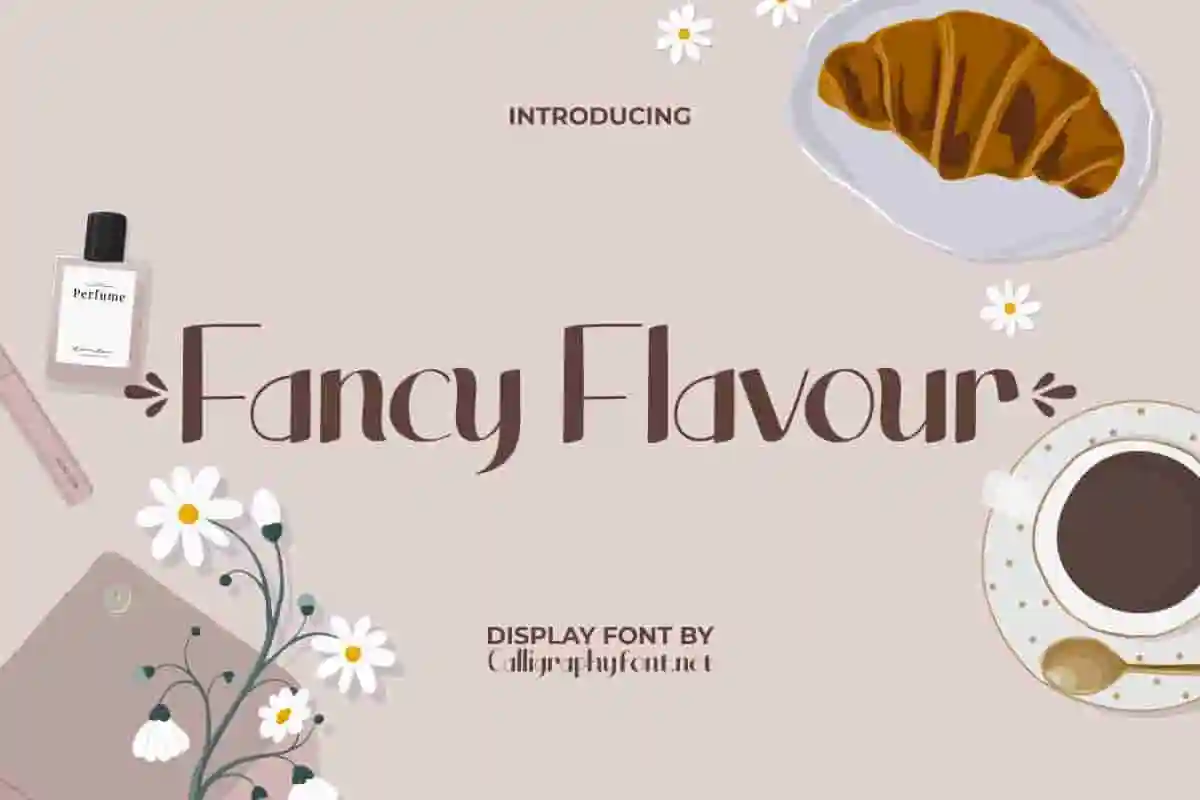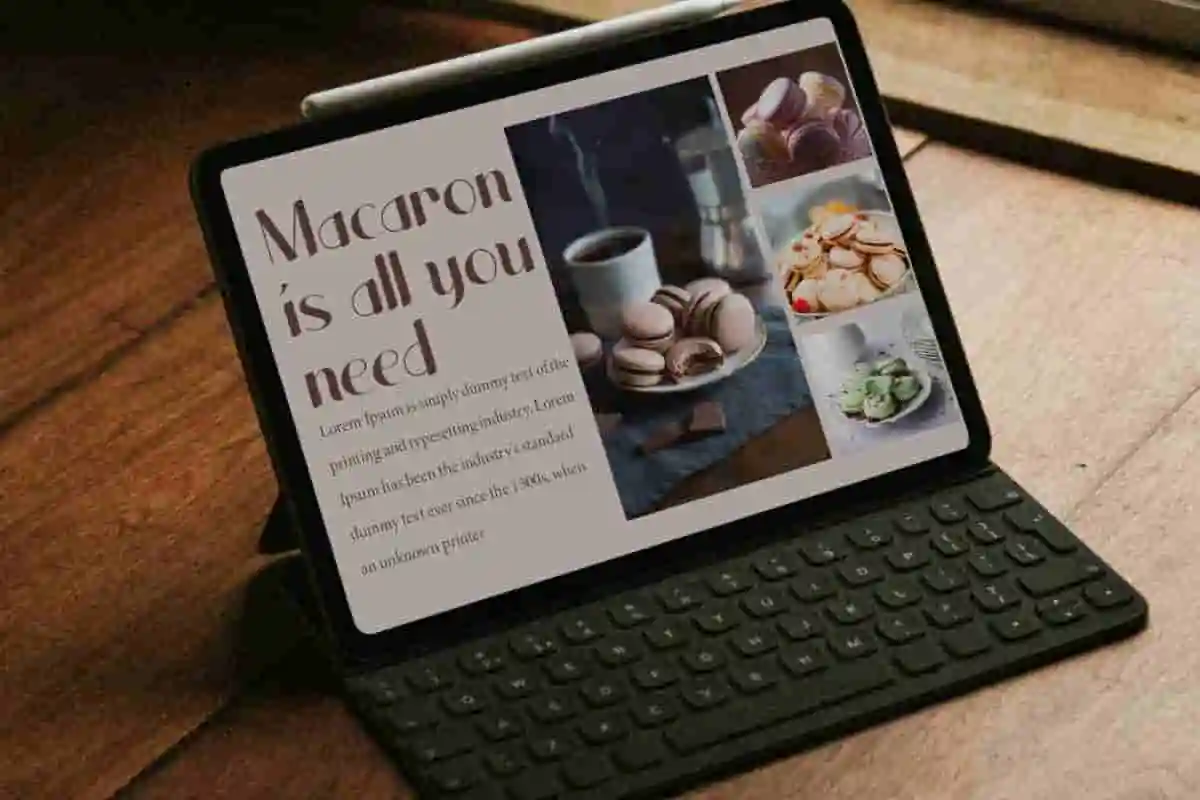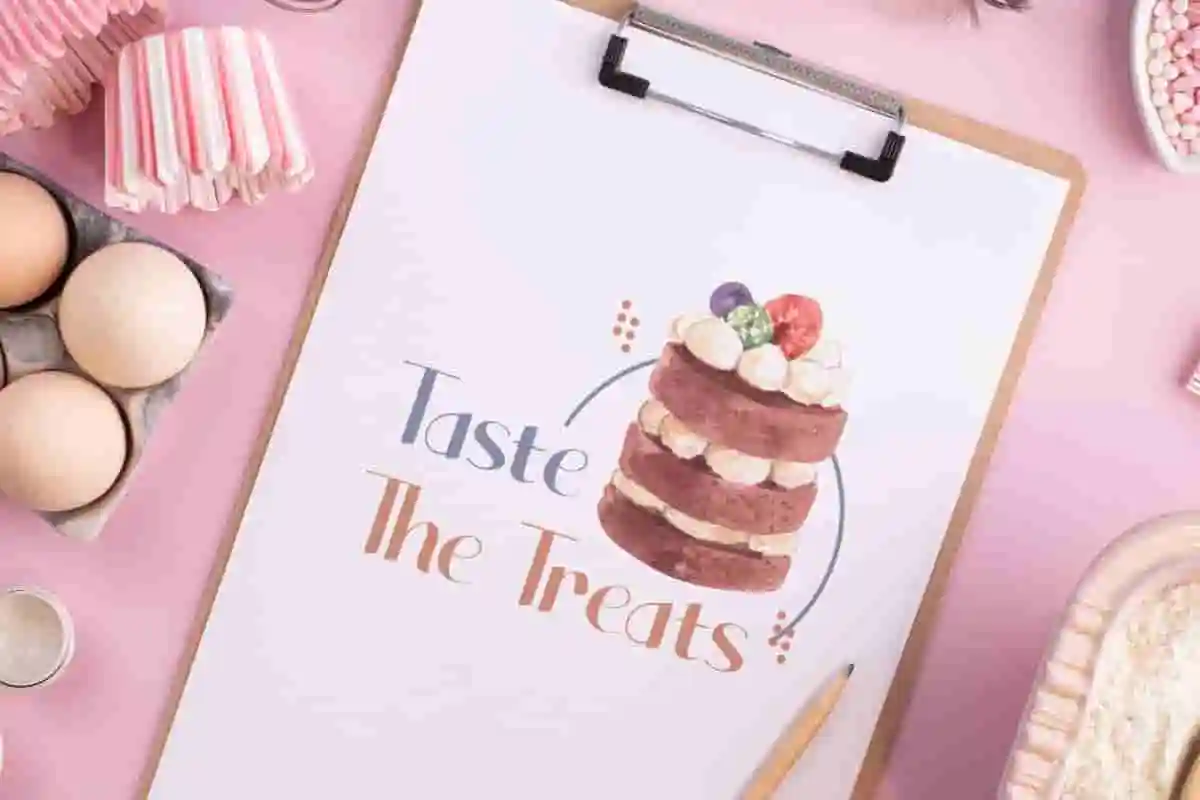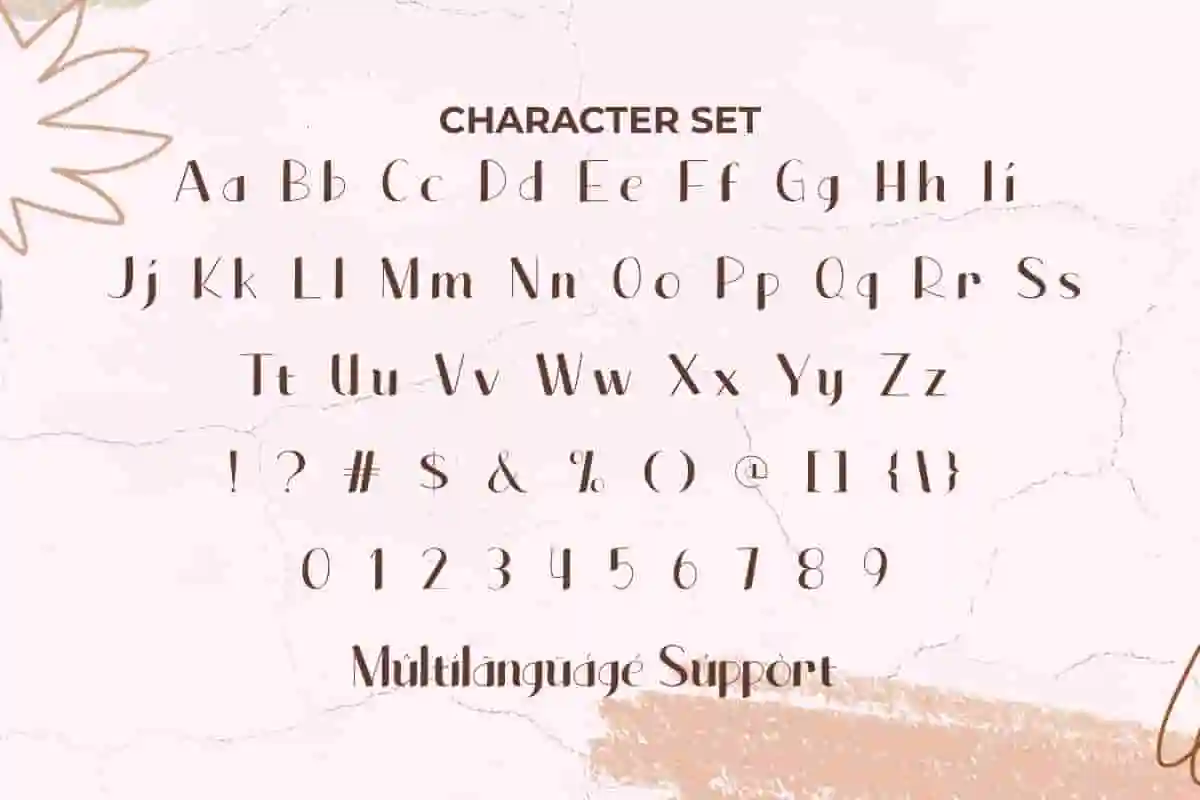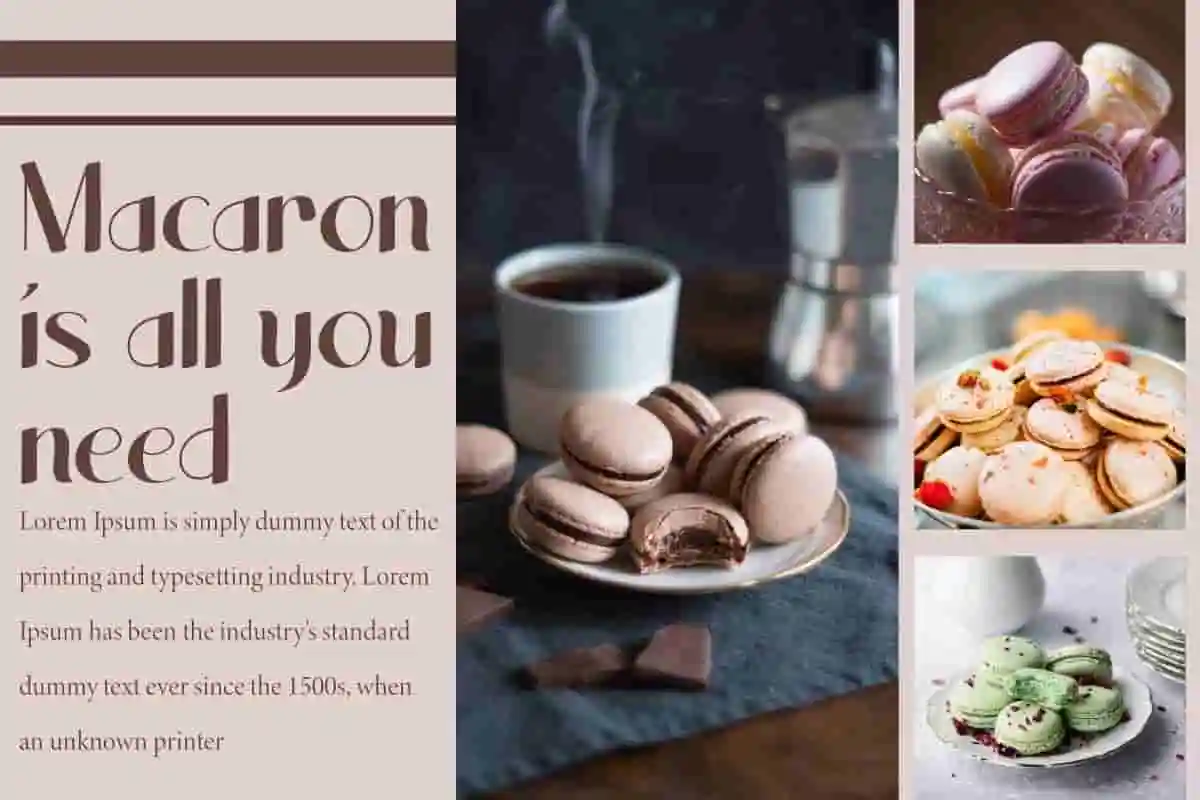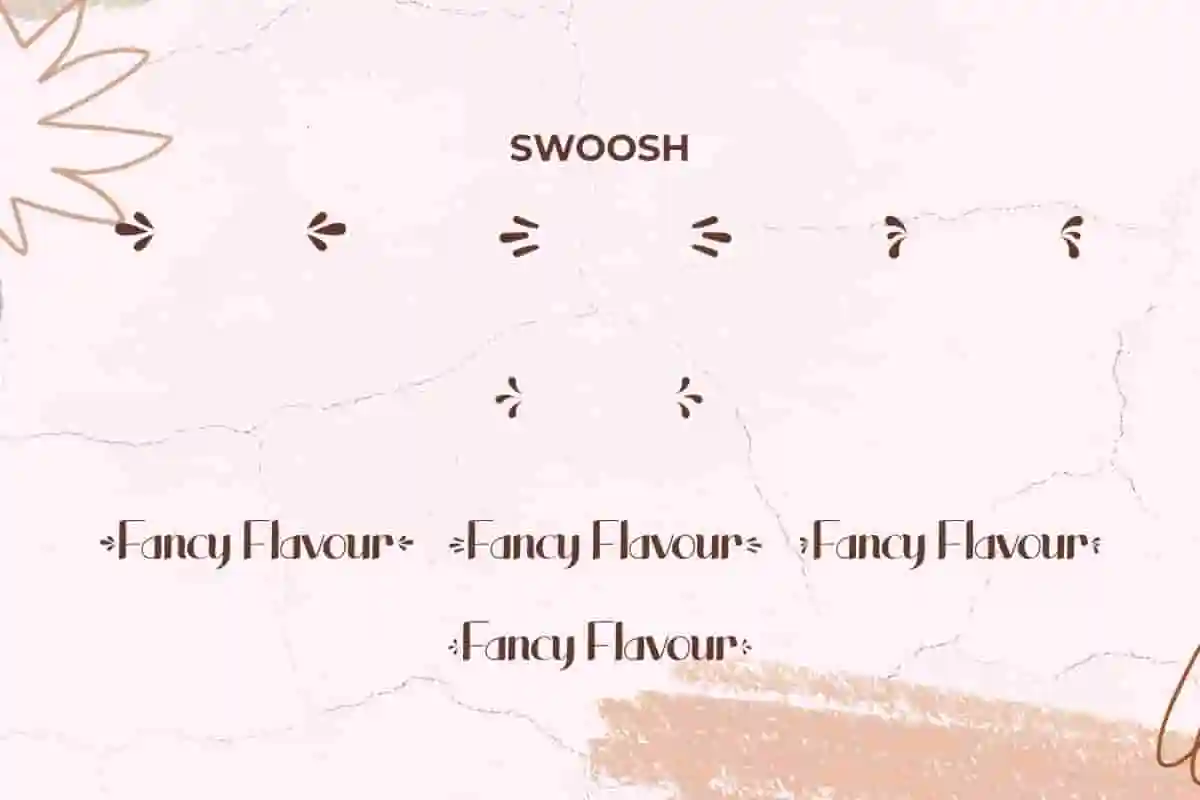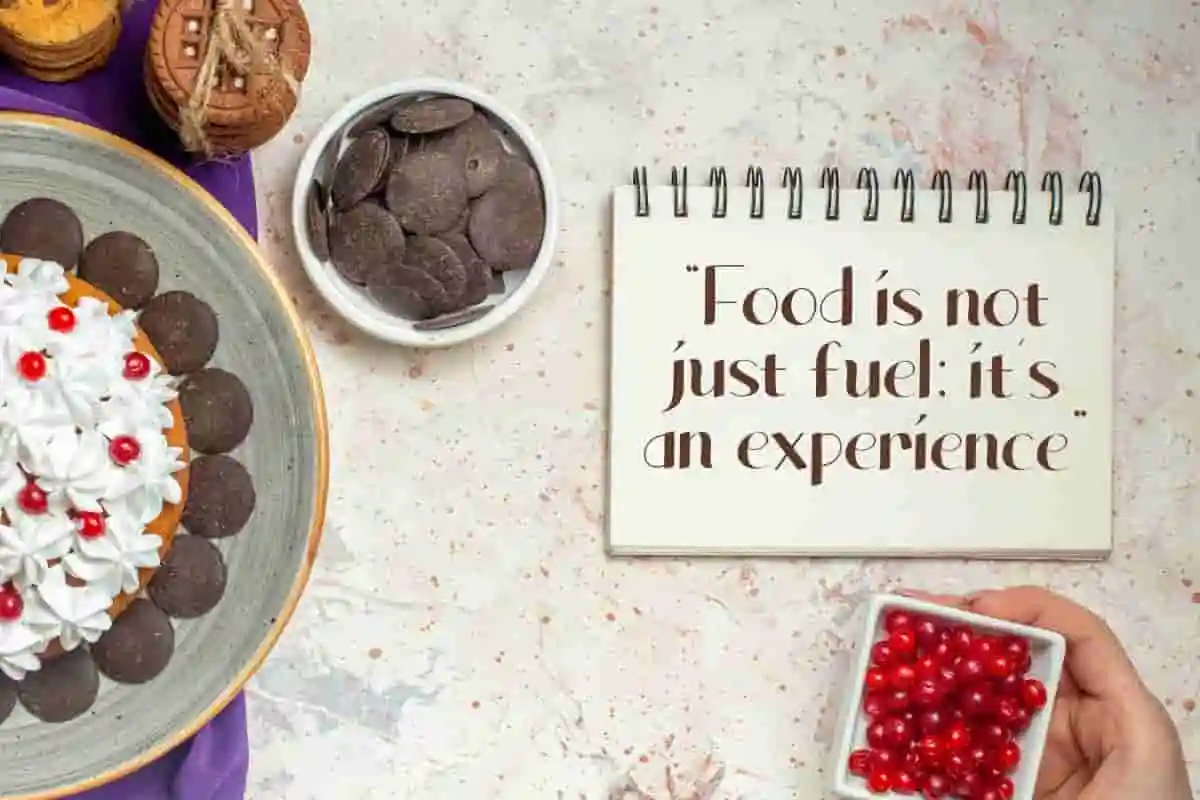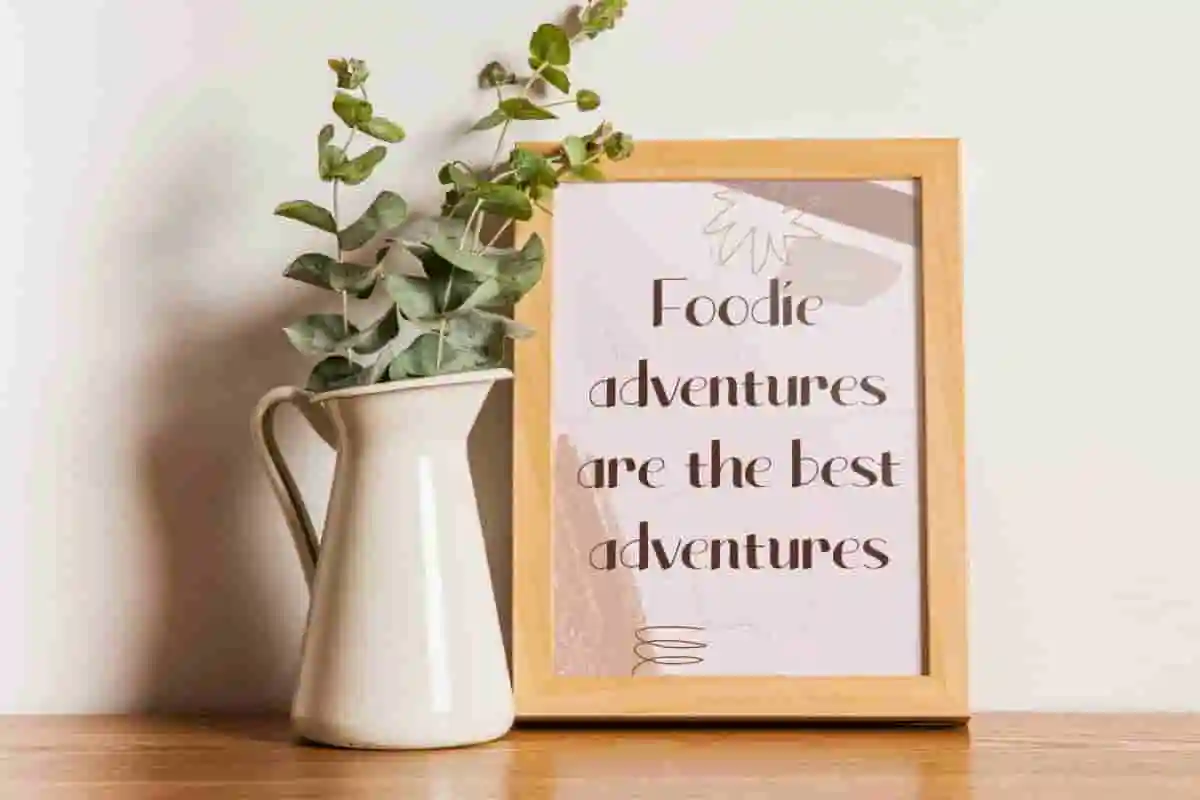
Fancy Flavour Display Font
Fancy Flavour Font is a trendy display font and will be perfect for any project that calls for a touch of sophistication. Suitable for various purposes of design applications.
Fancy Flavour Font is a charming display font with expressive and modern letter characters. This font will give your designs a fresh and contemporary look. This font is perfect for your creative designs such as design applications, cards, headers, invitations, letterheads, logotype, printed quotes, web design, stationery, title and other things. This distinctive font will give a different touch to each of your designs.
Introducing Fancy Flavour Display Font, a playful yet sophisticated typeface that brings a delicious twist to your typography. With its bold curves, artistic flair, and unique personality, this font is the perfect recipe for eye-catching designs that stand out. Whether you’re working on product packaging, branding, social media posts, café menus, or handmade labels, Fancy Flavour adds charm, creativity, and just the right amount of fun.
Looking to add a playful yet polished look to your design? Meet Fancy Flavour Display Font, a unique and flavorful typeface that combines bold character with smooth curves. This font is made to stand out — just like your brand. Inspired by handcrafted signs and retro food packaging, Fancy Flavour is perfect for logos, product labels, bakery menus, social media content, event posters, and lifestyle branding.
Fancy Flavour Display Font, a fun and flavorful typeface designed to make your words stand out with style. With its bold curves, quirky charm, and handcrafted touch, this display font brings a delightful personality to any creative project.
- Stylish & Whimsical
- Perfect for Trendy Brands
Fancy Flavour Font brings a bright atmosphere and minimalist style. It can be easily combined with various other fonts. This gives you greater creative freedom in creating attractive designs later. The font’s unique and easy-to-read consistency makes it ideal for presenting a luxurious, elegant and clean appearance all at once. Good for use in bakeries, cafeteria, graphic design, handicraft, restaurant, etc.